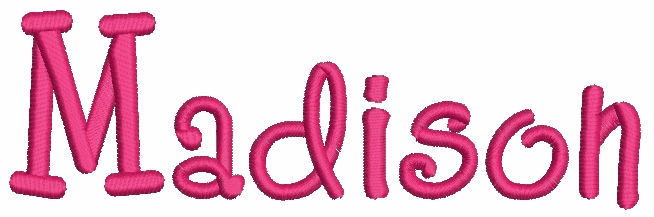
No 127 Sharpy Font Machine Embroidery Designs 2 inch high
• 26 Uppercase Letters – approx. 2" high
• 26 Lowercase Letters – between .9" and 1.8" high
This font is a kind of mix match of styles, but the pictures below show how CUTE the letters are when you put them together to spell names!
Designed to combine and spell names